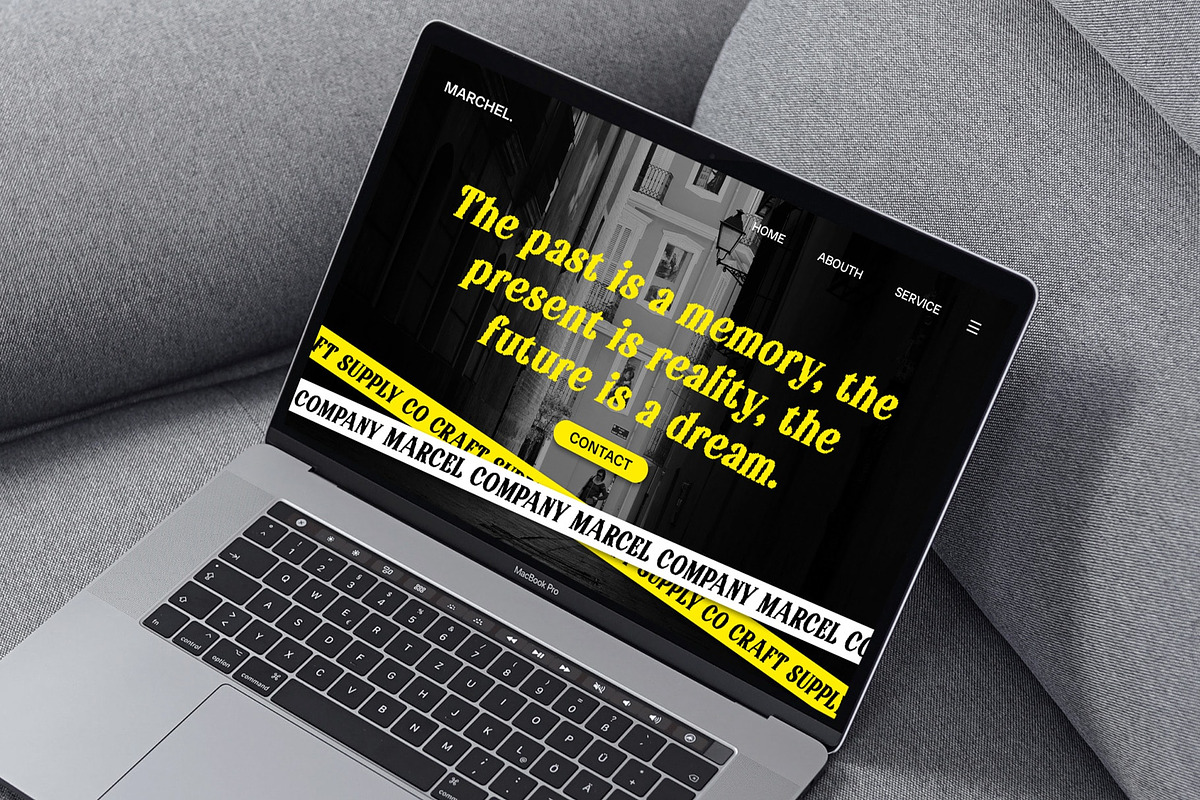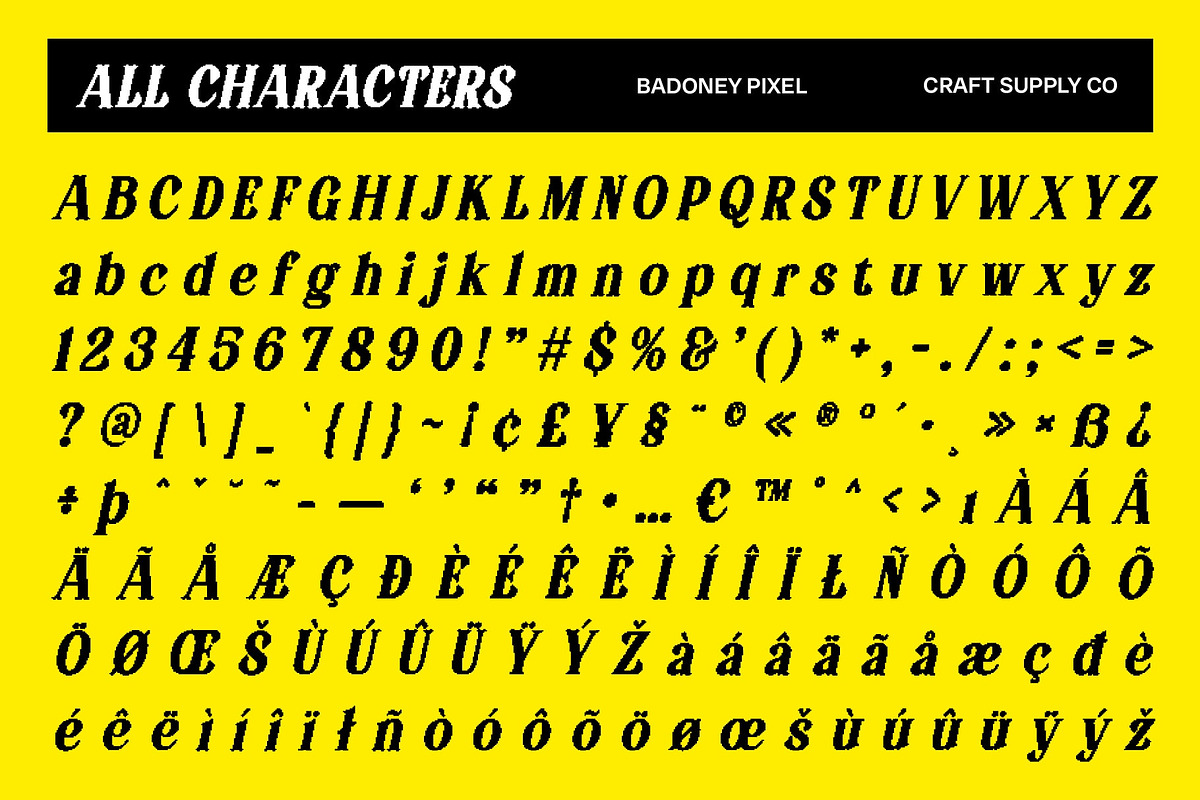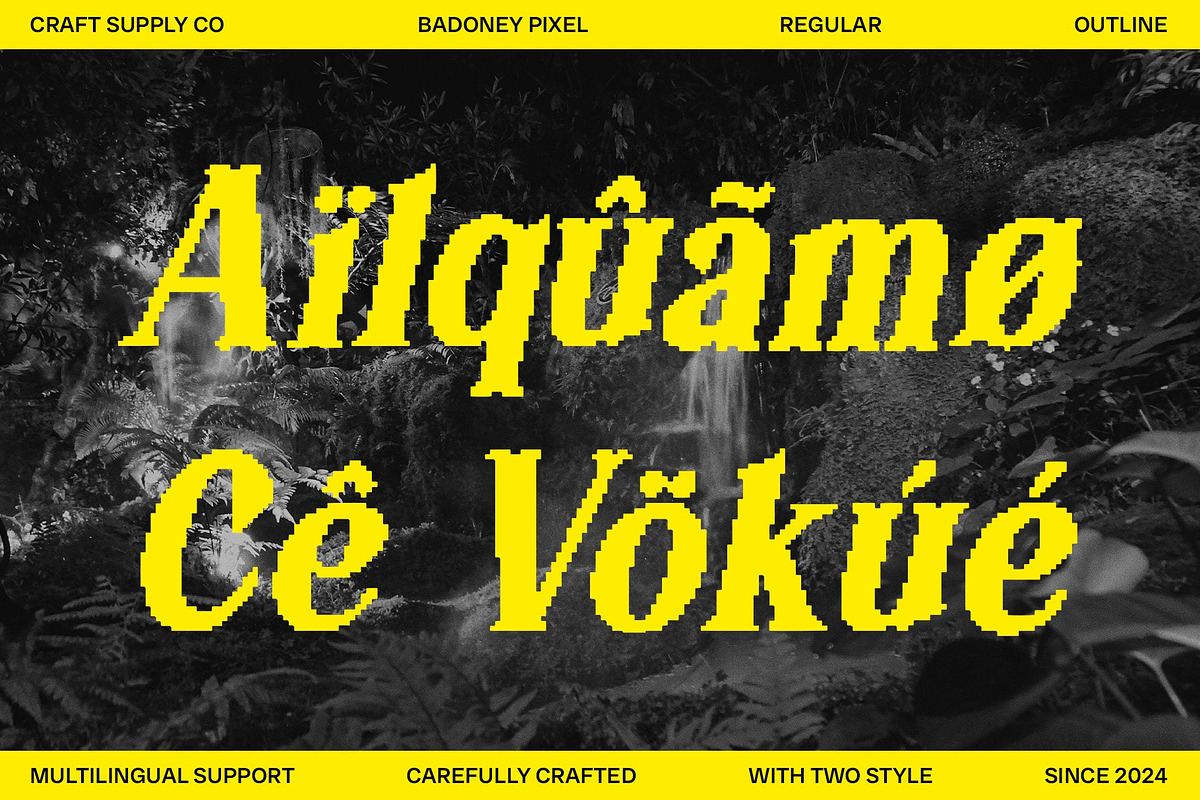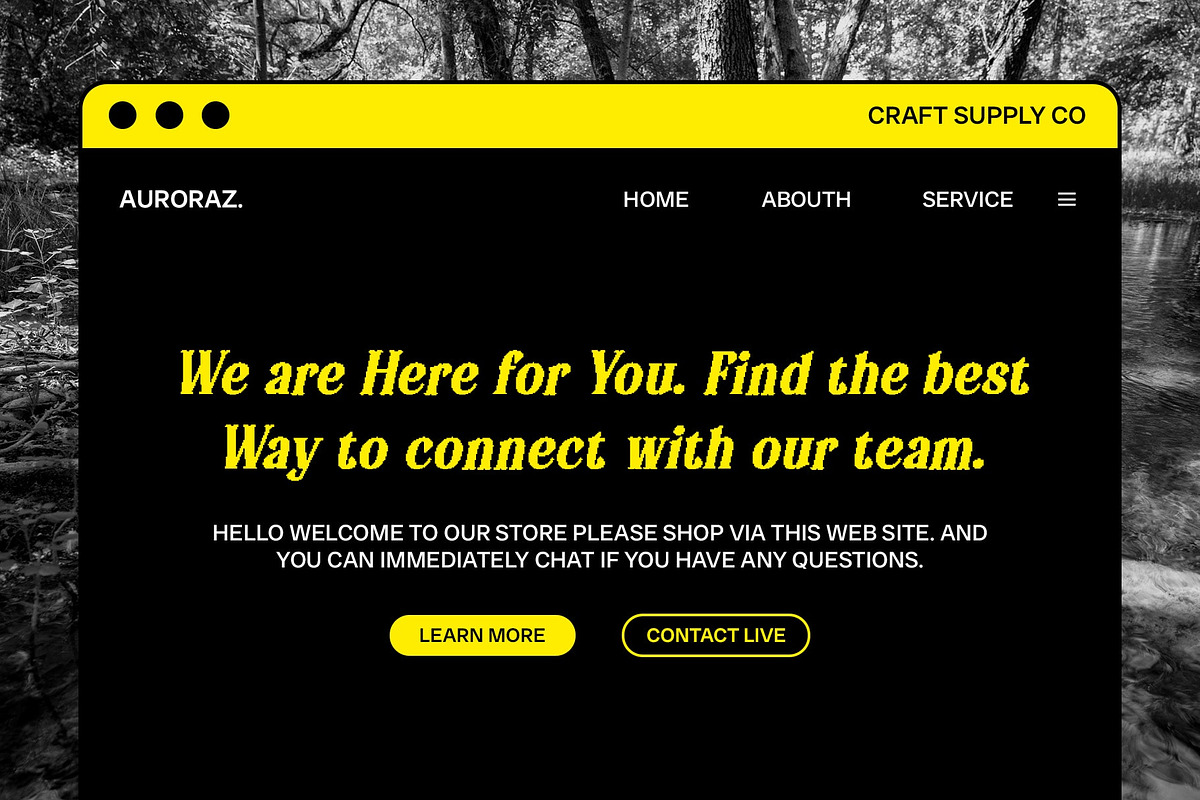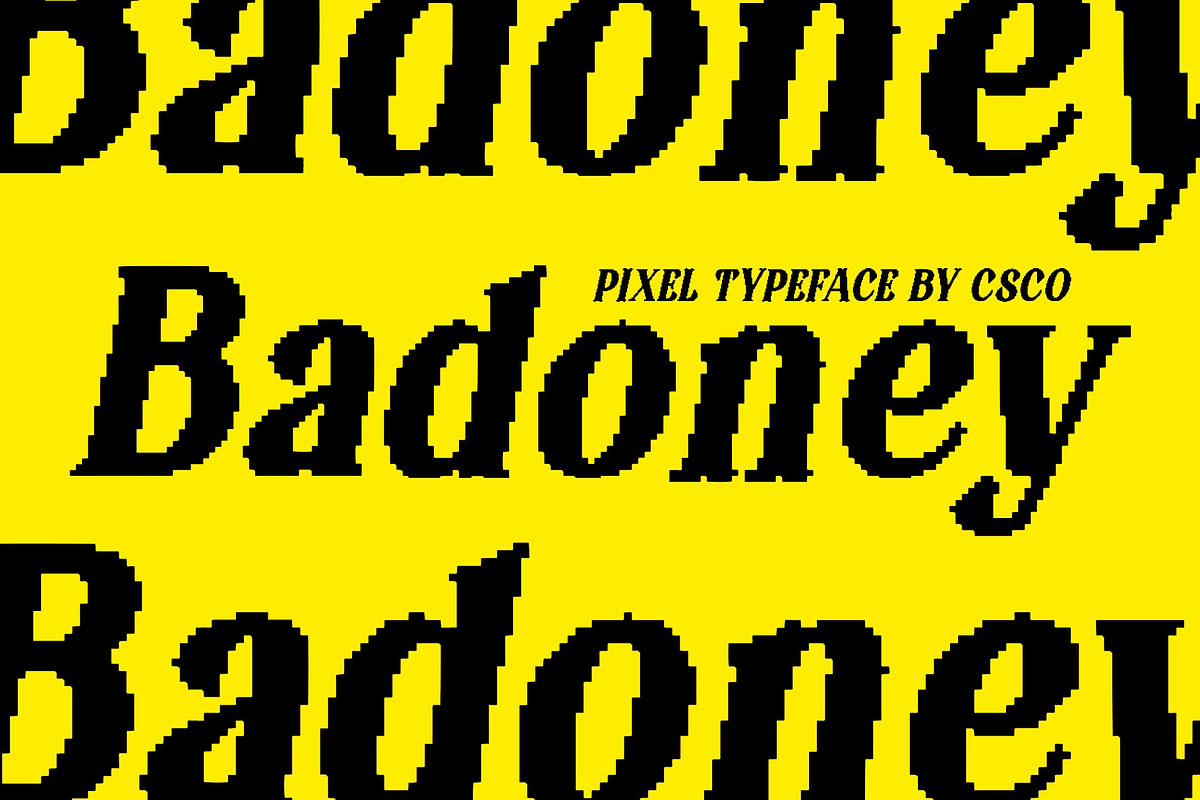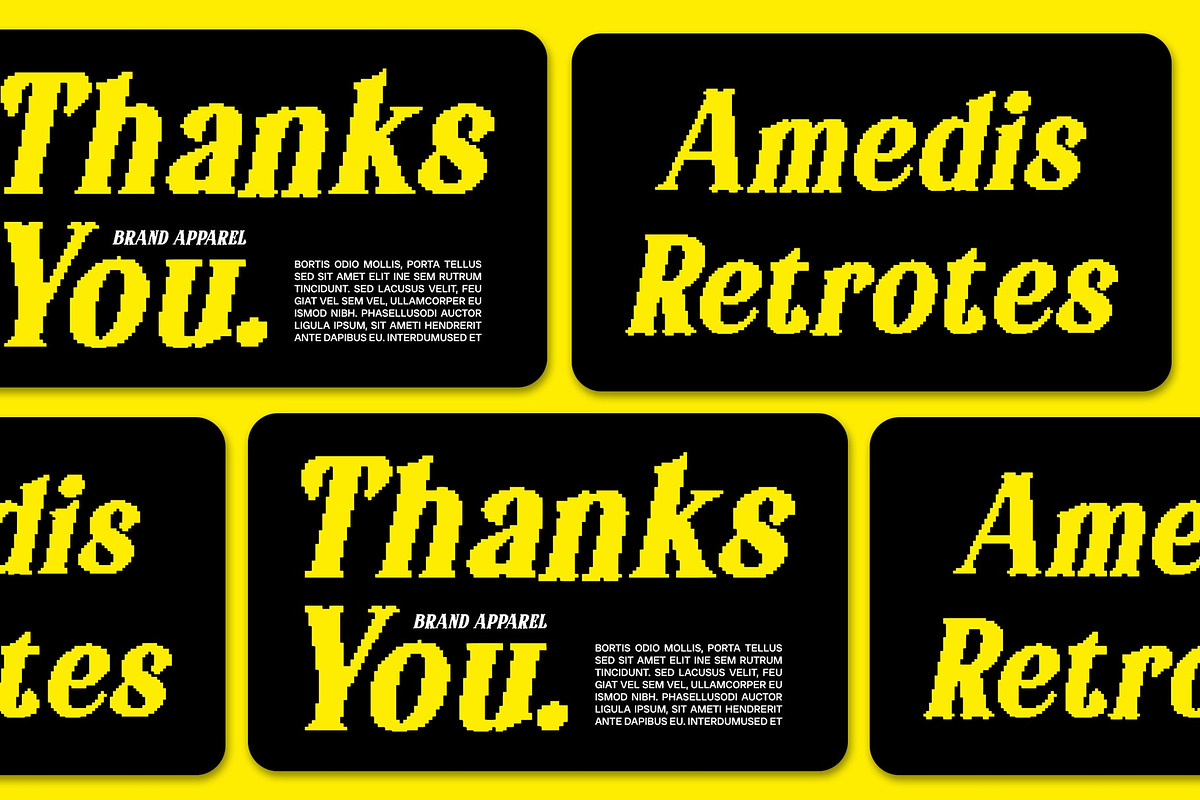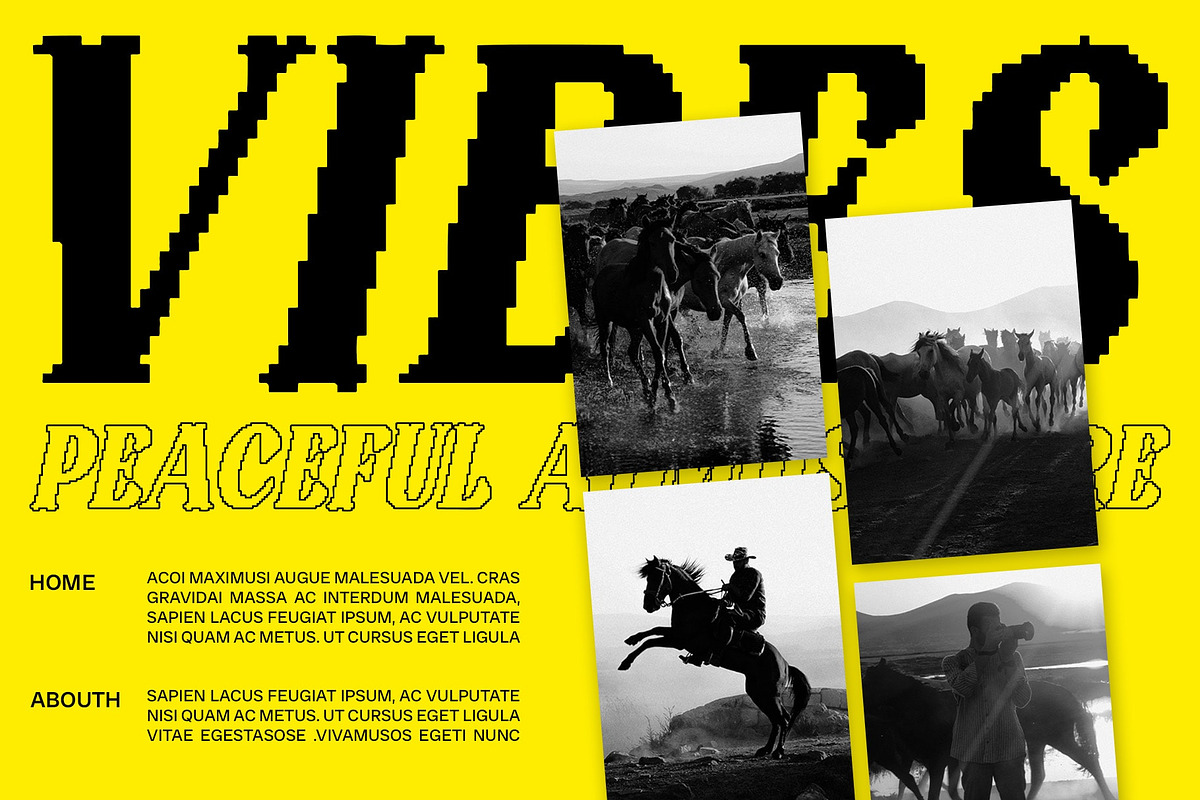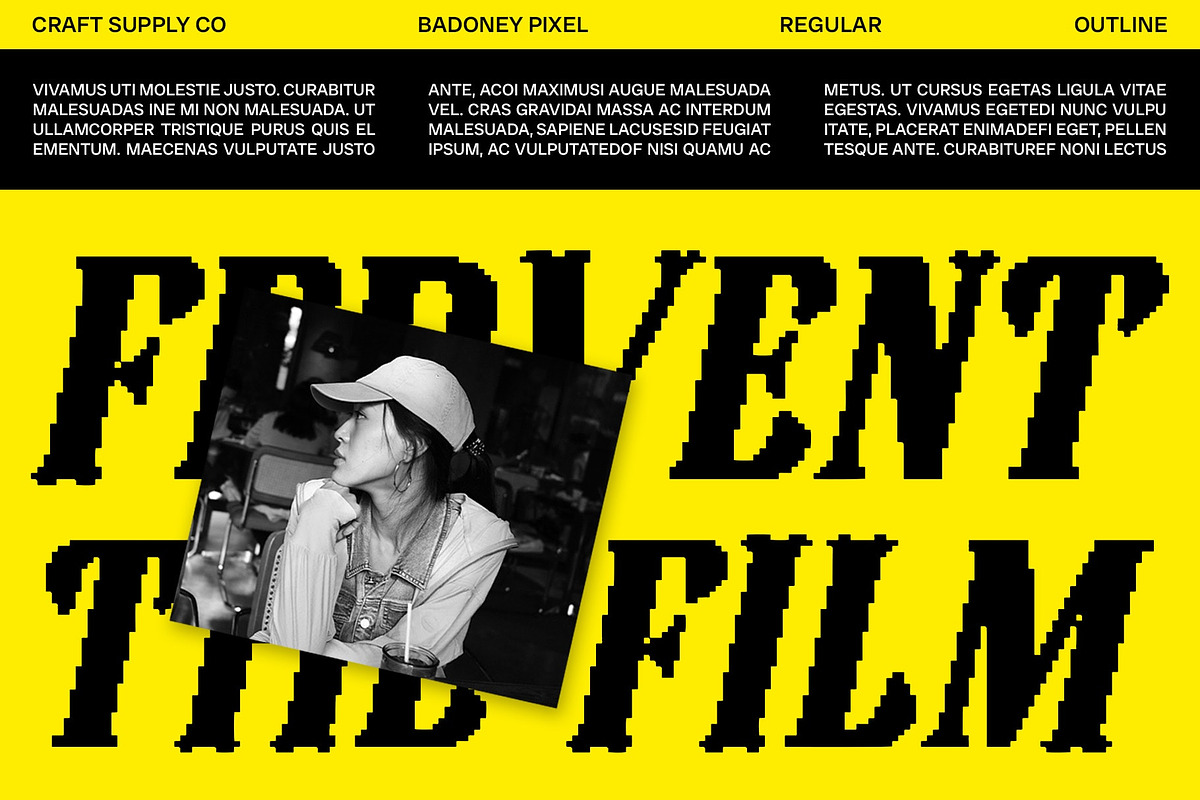
Badoney Pixel
Badoney Pixel: Where Retro Meets Digital Charm
Serif Font with Retro Pixel Effect
Badoney Pixel is a serif font that uniquely blends retro charm with digital aesthetics. Featuring classic serif shapes infused with pixelated details, this font bridges the gap between traditional typography and nostalgic digital graphics.
A Fusion of Classic and Digital Styles
This font combines the timeless elegance of serif typography with the playful nostalgia of early computer graphics. The pixel effect adds a distinct character, reminiscent of vintage video games or early digital displays, making Badoney Pixel a perfect choice for projects aiming to evoke a sense of retro charm.
Versatile Design Elements
Ideal for posters, branding, or any design where a touch of vintage digital flair is desired, Badoney Pixel stands out. Its ability to blend classic serif forms with pixelated details offers designers a unique tool to create visually engaging and nostalgic designs.
Capturing Retro Vibes
Whether used in print or digital media, Badoney Pixel captures the essence of retro aesthetics while maintaining readability and charm. Embrace the fusion of classic serif elegance with digital nostalgia in your next creative endeavor with Badoney Pixel.